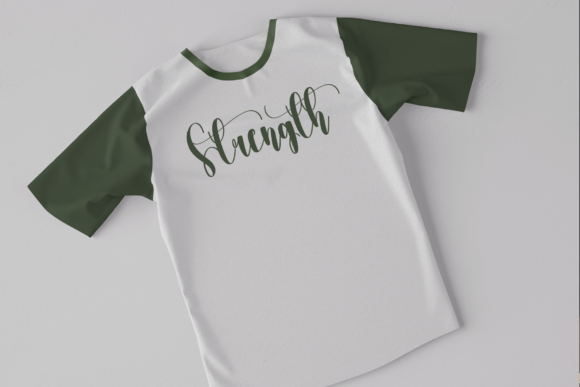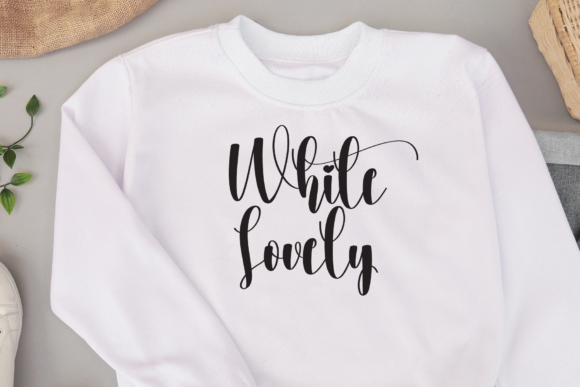
Girl Love Font
db-ku.com - Script & Handwritten -- Girl Love is a sweet and delicate script font that exudes elegance and class. This font was particularly crafted for those who need a beautiful and refreshing look to their designs.